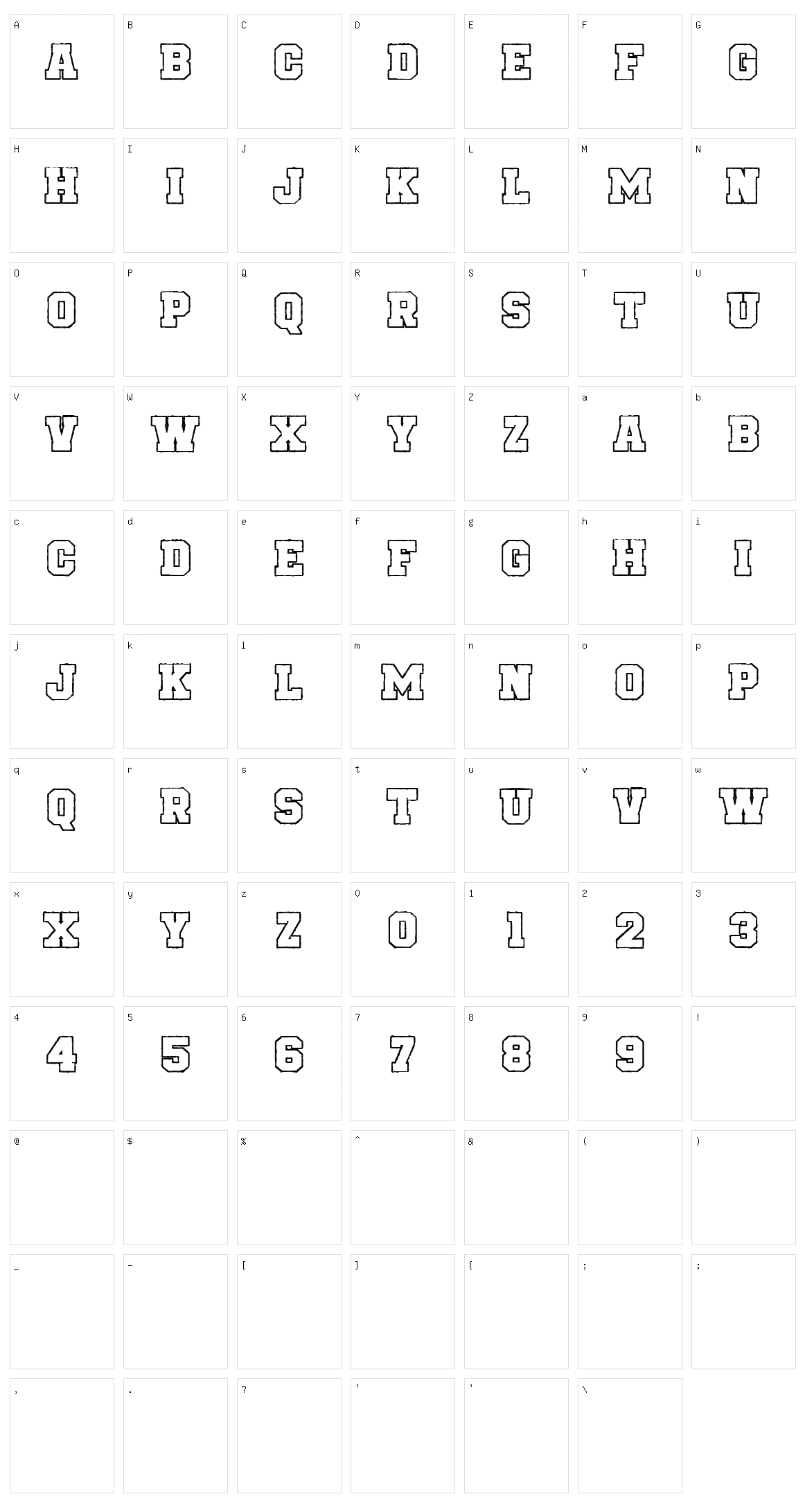
The free font CF University Of Nowhere is carefully designed by Cloutierfontes, showcasing a thoughtful balance of creativity and usability and falls under the Old School font style. When you download the ZIP file, it contains only 463.6 KB of font files, making it lightweight and quick to download. Please review the license details below to understand permitted usage and distribution rights. If license information is not available, we recommend using this font for personal projects only or contacting the author directly for commercial usage permissions.